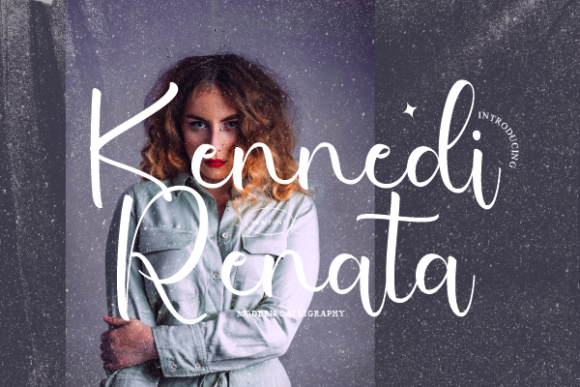
Behold the Enchanting Script that Will Transform Your Creative Canvas: Kennedi Renata Font
Immerse yourself in the world of Kennedi Renata, a script font exuding elegance and charm. Designed by the renowned Synthetic Type, this font is crafted to elevate your creative designs, injecting a touch of whimsy and playfulness to your projects. Whether you're a seasoned graphic artist or a passionate crafter, Kennedi Renata promises to be your faithful companion, bringing your visions to life with its alluring strokes and captivating curves.
Unleash Your Creativity and Explore Endless Possibilities: Kennedi Renata
With Kennedi Renata gracing your digital toolbox, you'll discover a font that knows no bounds. Its versatility shines across a myriad of projects, from logos that exude professionalism to branding campaigns that radiate uniqueness. Let your imagination soar as you create labels that captivate, photographs that enchant, and watermarks that add a touch of sophistication. Your special events will come alive with Kennedi Renata's presence, adding an unforgettable charm to invitations, signage, and decorative elements.
Ignite Your Imagination and Embrace the Beauty of Script: Kennedi Renata
Kennedi Renata is more than just a font; it's an invitation to embark on a creative journey where your imagination reigns supreme. With its delicate strokes and flowing lines, this font possesses an innate ability to transform ordinary designs into enchanting masterpieces. Witness how Kennedi Renata breathes life into your children's invitations, making them cherished keepsakes that capture the innocence and wonder of childhood. Let your creativity flourish as you explore the boundless possibilities that Kennedi Renata offers.